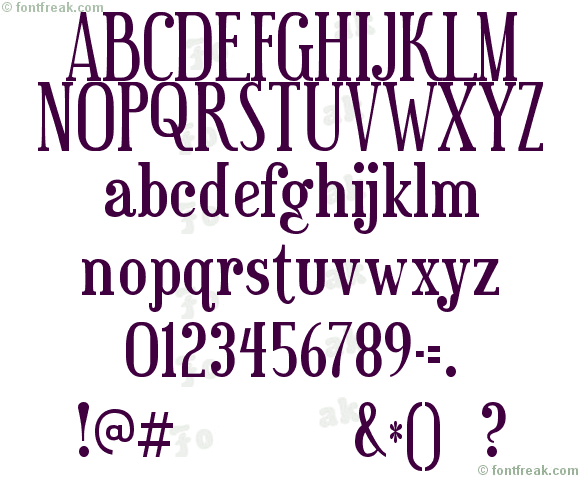
Euphorigenic
About Euphorigenic
Euphorigenic is a distinctive display font designed by Ray Larabie in 1999, categorized as a decorative typeface. This font showcases a unique blend of playful curves and sharp angles, creating an inviting and energetic feel. The stroke weight varies throughout the letters, contributing to its dynamic appearance, while the moderate contrast enhances readability. The spacing is thoughtfully designed, ensuring that each character maintains its individuality without feeling disconnected from the overall word.
Euphorigenic is particularly well-suited for a variety of applications. It shines in creative projects such as wedding invitations, where its whimsical nature can add a personal touch. Movie posters benefit from its bold, eye-catching style, drawing attention to titles and taglines. Additionally, restaurant menus can use this font to convey a lively atmosphere, making the dining experience feel more inviting. Graphic designers will find it perfect for branding projects that require a unique identity, while content creators can utilize it in social media graphics to attract engagement.
The target audience for Euphorigenic includes graphic designers, small business owners, and content creators looking for a font that stands out and adds flair to their projects. This font is available as freeware, making it an accessible choice for those who want to elevate their designs without compromising on quality.
What sets the Euphorigenic font apart is its playful versatility combined with its artistic flair. It effectively captures attention while maintaining a sense of sophistication, making it ideal for projects that aim to evoke joy and creativity. For those interested, a Euphorigenic font free download can be found on various font websites, allowing users to explore its unique aesthetic in their own designs.